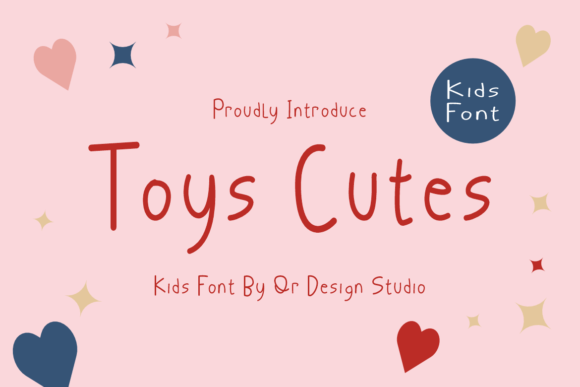
Step into a world of enchantment with Toys Cutes Font, a whimsical and spirited script font that will spark your creativity and add a touch of magic to your designs. This charming handwritten font, crafted by the talented qrdesignstd, captivates with its natural and unique style, making it the perfect choice for a diverse range of projects.
Let Toys Cutes Font transport you to a realm of imagination, where your words dance and your designs come alive. Its playful and friendly charm is ideal for creating captivating logos, delightful invitations, enchanting posters, and heartwarming social media posts. Dive into the world of Toys Cutes Font, and let your creativity soar to new heights.
With Toys Cutes Font, the possibilities are endless. Its versatility knows no bounds, adapting seamlessly to any project you envision. Whether you're designing whimsical greeting cards, enchanting book covers, or eye-catching branding materials, Toys Cutes Font will elevate your work to new levels of charm and delight.
Toys Cutes Font is not just a font; it's an experience. It's a journey into a world of wonder and imagination, where your designs take on a life of their own. Embrace the magic of Toys Cutes Font, and let your creativity bloom like never before.